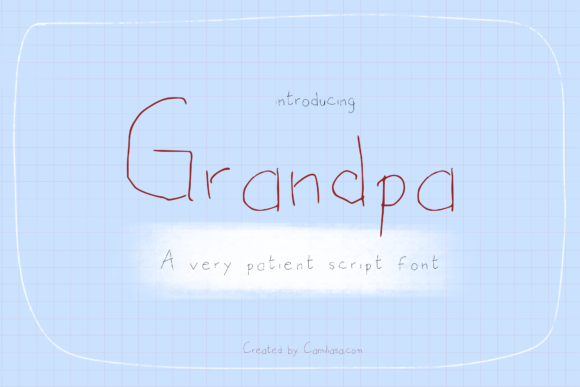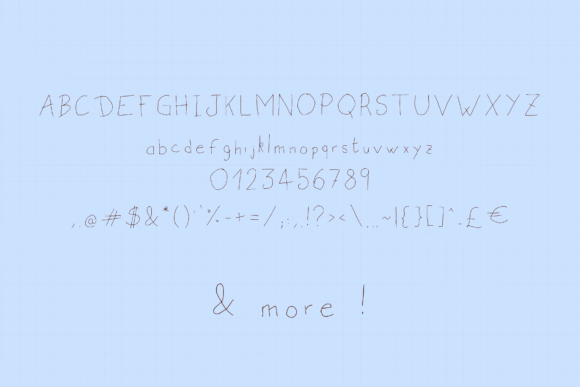
HomeScript FontsGrandpa Font Script Fonts Grandpa Font FacebookXPinterestWhatsApp Grandpa Font Poster 2 About Grandpa Font Grandpa is a simple and casual script with a rough style. DOWNLOAD ON CREATIVE FABRICAThis font is sold and delivered by Creative Fabrica. Font Canyon may earn a commission if you buy through this link. People also explored Salvatrice Extra Black Font History Font Broken Heart Font Pixeled English Font Hello Bestie Font Southside Font Moonstar Font Reginald Font Serrona Duo Font 279 0 TagsGrandpa Font Previous articleRight Female FontNext articleCoco Banana Font LEAVE A REPLY Cancel reply Comment: Please enter your comment! Name:* Please enter your name here Email:* You have entered an incorrect email address! Please enter your email address here Website: Save my name, email, and website in this browser for the next time I comment. Personal Use Free Fontmageddon Personal Use Free Read more about this font Bulky Personal Use Free Read more about this font Mixed Artistry Personal Use Free Read more about this font Kitchen Blue Personal Use Free Read more about this font BLOG Top 7 Google Fonts Alternatives for Faster and Privacy-Friendly Web Design (2025) Top 7 Google Fonts Alternatives for Faster and Privacy-Friendly Web Design (2025) When it comes to web typography, Google Fonts has long been the go-to... Exploring Font Trends Modern Sans-Serif Fonts That Brands Love in 2025 5 Fonts That Will Dominate Design Trends in 2026